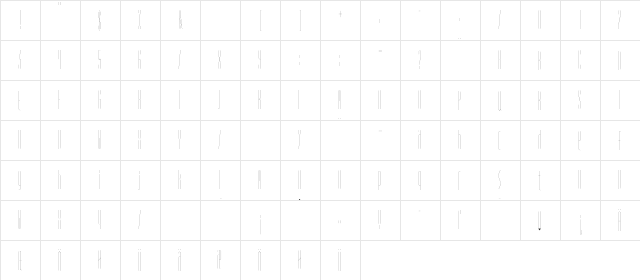
Spirit Light
| Year | 1989 |
Design Context for Spirit Typeface
Spirit takes a measured approach to typography — its balanced proportions and neutral character make it a reliable workhorse for both digital and print work. Its slender proportions lend an understated elegance to any composition.